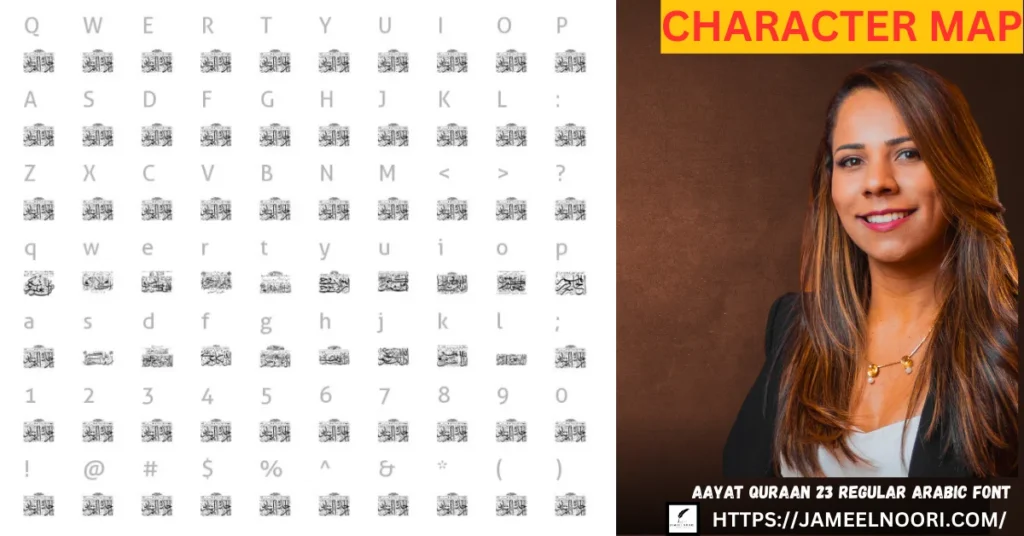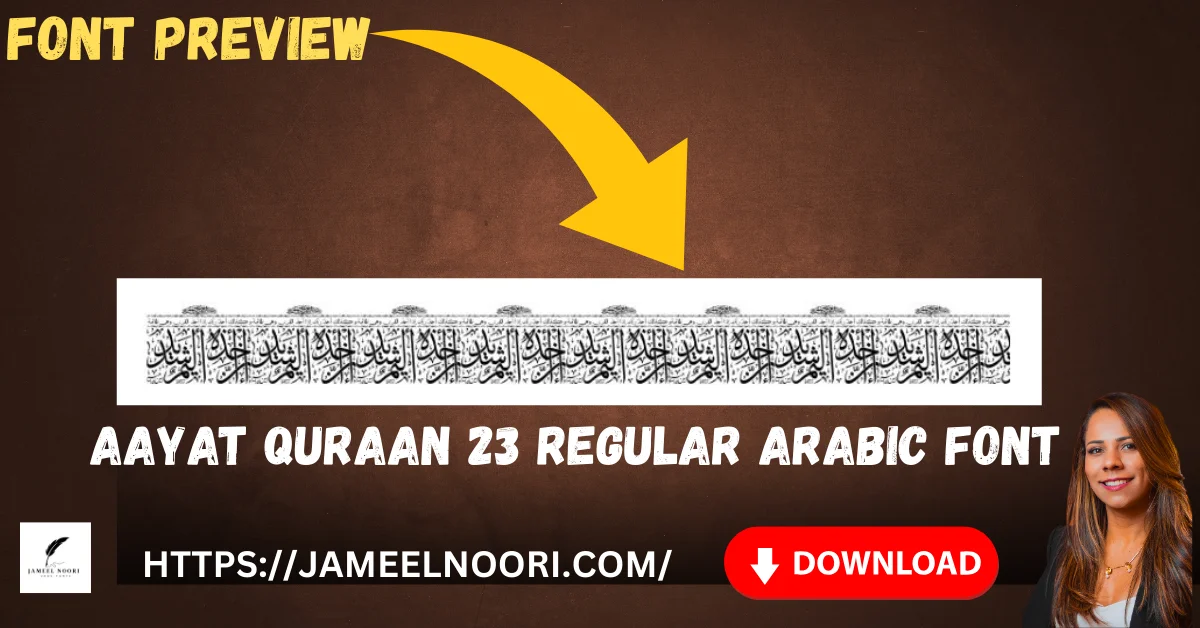
Aayat Quraan 23 Regular Arabic Font is one of the most popular Arabic-style fonts used widely in Pakistan for Urdu writing, Islamic calligraphy, professional designing, and Quranic text formatting. This powerful and beautifully crafted typeface is a Regular TrueType font that delivers excellent readability and elegant curves suitable for digital and print use. It has been downloaded over 36,097 times, and 507 users have rated it 5.0/5, proving its massive popularity among graphic designers, students, teachers, and publishers.
Key Features of Aayat Quraan 23 Regular Arabic Font
- Smooth Arabic & Urdu curves
- Ideal for Quranic calligraphy
- High readability for printed books
Why Aayat Quraan 23 Regular Arabic Font Is the Best Choice in Pakistan
The Aayat Quraan 23 Regular Arabic Font stands out as the best choice because of its premium readability, lightweight structure, and perfect balance between style and simplicity. In Pakistan—especially in Lahore, Karachi, and Islamabad—this font is widely used for Urdu documents, Arabic calligraphy, and Islamic publications. It is considered an expert-choice typeface for Quranic verses, banners, wedding cards, and book designing.
Character Map & Calligraphy Style of Aayat Quraan 23 Regular Arabic Font
The Aayat Quraan 23 Regular Arabic Font comes with a detailed character map showcasing every letter, symbol, and connected stroke. The calligraphy style reflects classical Arabic design with modern refinement. Designers can explore the full character map to understand ligature flow, spacing style, and the artistic curves that make this font perfect for Islamic projects.
Best Uses of Aayat Quraan 23 Regular Arabic Font in Daily Projects
The Aayat Quraan 23 Regular Arabic Font is extremely versatile. Here are the best uses:
- Urdu/Arabic books
- Islamic posters & banners
- Social media designs
- Quranic verses
- Naat/Nasheed designs
- School/college Urdu assignments
- Nikah nama, invitation cards, certificates
Its professional look makes it ideal for both traditional and modern projects.
Benefits of Using Aayat Quraan 23 Regular Arabic Font for Urdu & Arabic Writing
Using this font offers several powerful benefits:
- Crystal-clear readability
- Professional calligraphy
- Lightweight for fast performance
- Smooth curves for printing
- Suitable for high-quality PDFs
- Perfect for Quran and hadith content
Conclusion – Why You Should Use Aayat Quraan 23 Regular Arabic Font
In conclusion, the Aayat Quraan 23 Regular Arabic Font is an excellent choice for anyone looking for a premium, high-quality Arabic calligraphy font in Pakistan. Whether you are creating Urdu content, Islamic publications, or beautiful Arabic designs, this font ensures clarity, elegance, and professional results. Its massive downloads and perfect user rating make it a trusted typeface for students, teachers, designers, and publishers across Lahore, Karachi, and other cities.
What is Aayat Quraan 23 Regular Arabic Font?
It is a high-quality Arabic and Urdu calligraphy font widely used for Islamic content.
Is Aayat Quraan 23 Regular suitable for Quranic text?
Yes, it is one of the best fonts for Quranic and Islamic calligraphy.
What makes this font popular in Pakistan?
Its readability, smooth strokes, and Islamic style make it very popular.
Can I use this font for book designing?
Yes, it is ideal for Urdu and Arabic book design.
Is this font good for social media graphics?
Yes, designers use it for banners, quotes, verses, and posters.